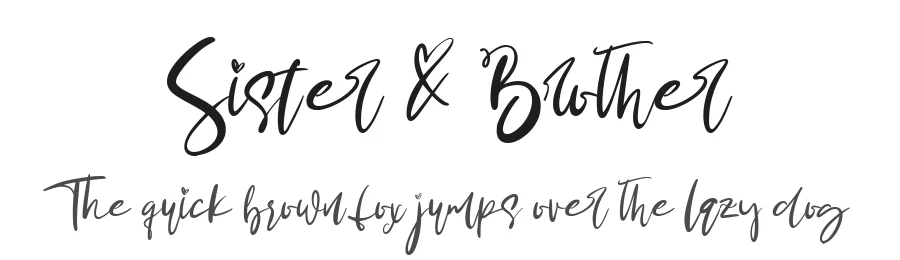
About Butterfly Signature Font
Butterfly Signature Specifications
Butterfly Signature supports 209 languages.
Butterfly Signature Font is a script font that shines as a display or heading face. Pair it with a clean sans-serif or serif font for body text β the contrast creates a clear hierarchy while the two styles stay balanced and easy to read.